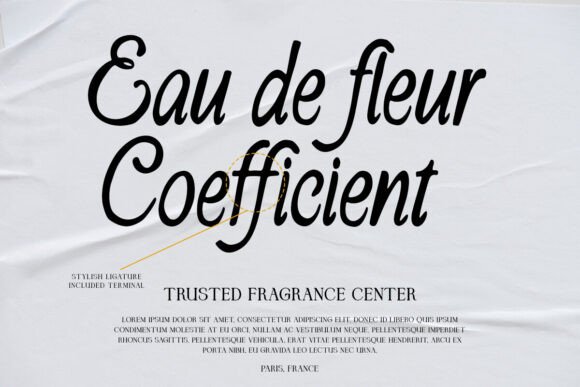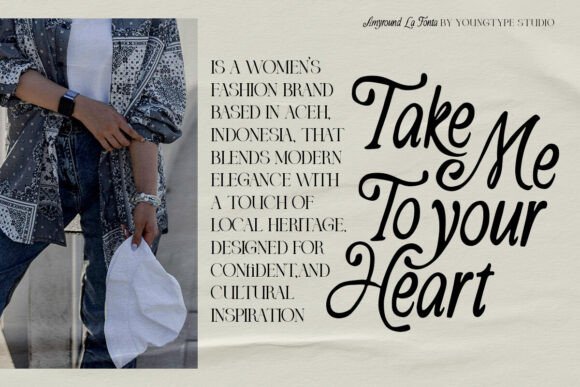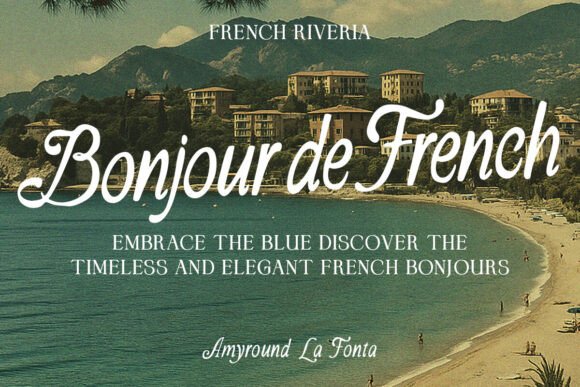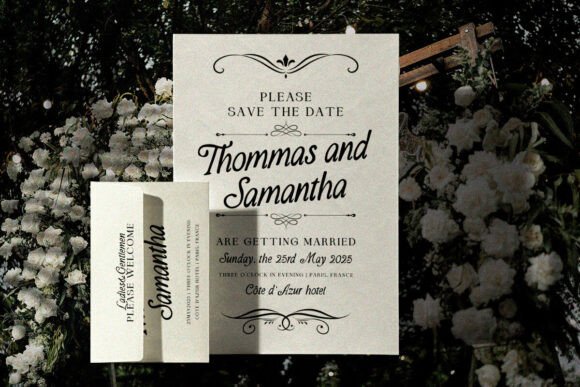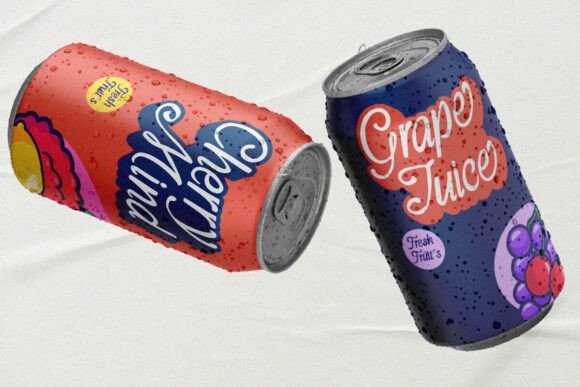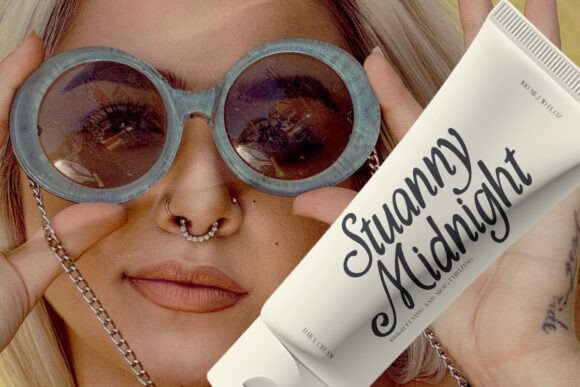
Amyround La Fonta Font: Elevate Your Design with Elegance and Versatility
In the world of typography, few typefaces manage to strike a balance between elegance, versatility, and expressiveness. Amyround La Fonta Font is one such exceptional typeface family that combines two distinct yet harmonious styles—a sophisticated script and a refined serif. This dual-style font family is designed to cater to a wide range of design needs, from branding and editorial projects to fashion-forward designs.
The Elegant Script Style
The script style of Amyround La Fonta Font is a masterpiece of fluidity and grace. Its smooth, flowing letterforms are characterized by graceful curves and stylish swashes, which together evoke a sense of femininity and artistic flair. This style is perfect for designs that require a touch of sophistication and elegance, such as luxury brand logos, wedding invitations, and high-end fashion editorials. The script’s elegant flow can add a dynamic and personal touch to any project, making it stand out with a unique charm.
The Refined Serif Style
In contrast to the fluidity of the script, the serif style of Amyround La Fonta Font offers a high-contrast, all-caps design that exudes timeless elegance and strength. Its sharp, classic details bring to mind the traditional typography of luxury publishing and high-end brands, providing a sense of solidity and reliability. This style is ideal for headings, titles, and any design element that requires a strong, authoritative presence. The high contrast between thick and thin strokes adds a layer of sophistication, making it suitable for editorial layouts, fashion magazines, and brand identities that demand a refined look.
Versatility and Expressive Combinations
One of the key strengths of Amyround La Fonta Font is its versatility. The combination of the script and serif styles offers endless possibilities for creative expression. Designers can use the script style to add a soft, elegant touch to a design, while the serif style can be used to introduce structure and strength. Together, they create a harmonious balance that can elevate any design project. For instance, pairing the elegant script for body text with the bold serif for headings can create a visually appealing contrast that captures the reader’s attention and maintains it.
Applications in Design
Amyround La Fonta Font’s range of applications is vast. In branding, it can help create a distinctive and luxurious identity. For editorial design, such as in magazines and newspapers, the font’s readability and aesthetic appeal make it an excellent choice. In fashion design, the font’s elegance and modernity can add a high-end feel to any material, from fashion magazines to brand advertisements. Moreover, its suitability for web design allows for consistent branding across digital platforms, ensuring a professional and cohesive online presence.
Why Choose Amyround La Fonta Font?
Choosing Amyround La Fonta Font for your design project means opting for quality, versatility, and timeless elegance. Its unique combination of script and serif styles allows for a wide range of creative possibilities, making it a valuable addition to any designer’s toolkit. Whether you’re working on a luxury brand campaign, a fashion editorial, or a personal project, this font family provides the tools to express your creativity with precision and flair.
Amyround La Fonta Font stands out in the world of typography for its sophisticated blend of elegance and versatility. Its script and serif styles, though distinct, work together in harmony to offer designers a powerful tool for creating expressive and balanced designs. Whether you’re aiming for the softness of elegance or the strength of structure, Amyround La Fonta Font provides the means to elevate your design to new heights of sophistication and appeal.